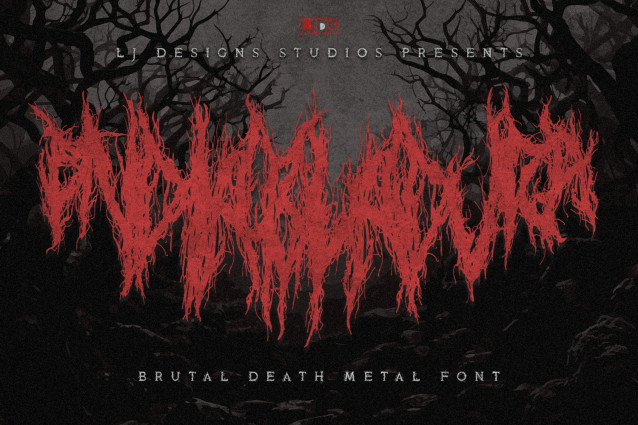
Endiabladura Font
Endiabladura Font is the name chosen for this aberration, the result of a cultural and dark fusion, resulting in something out of the ordinary.
This font has an organic-botanical look, as if a natural vine were trying to survive by creating completely uncoordinated branches and roots everywhere, resulting in letters that, when joined together, are practically impossible to read.
It’s perfect as a brutal logo for a good Death Metal, Deathcore, Grindcore, Goregrind, Metalcore, Brutal Death Metal, or any other brutal Heavy Metal genre. It’s even perfect for posters related to festivals or concerts of the same theme.